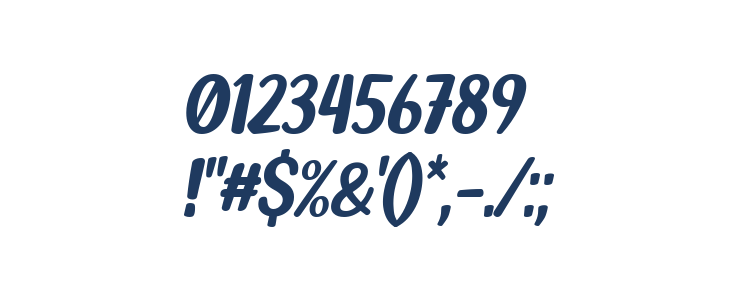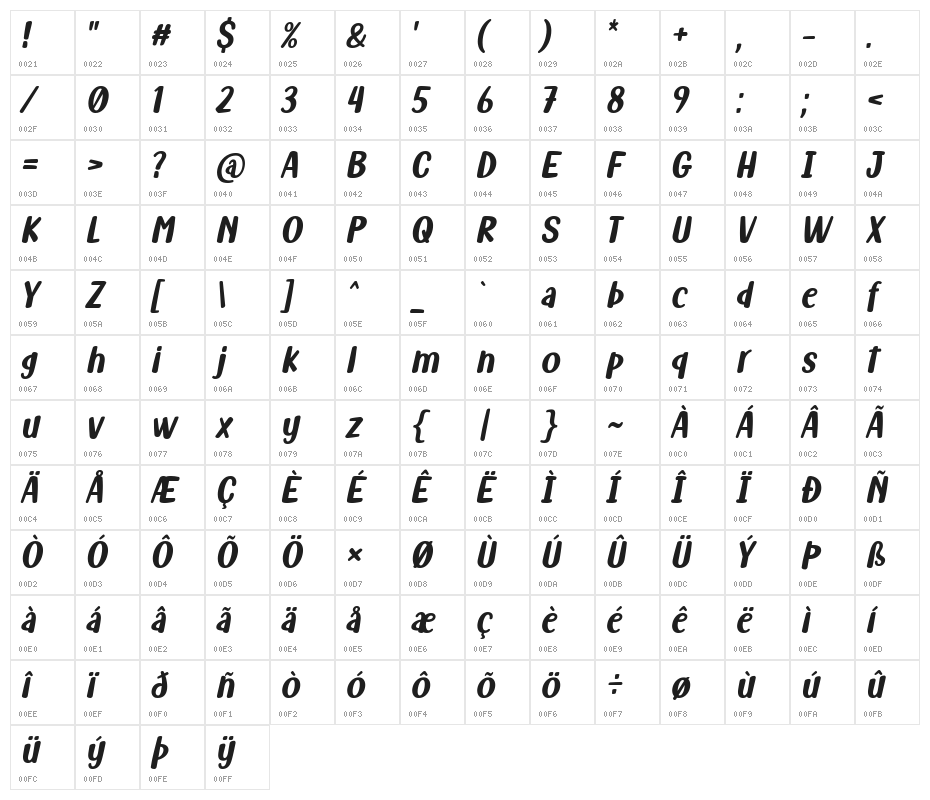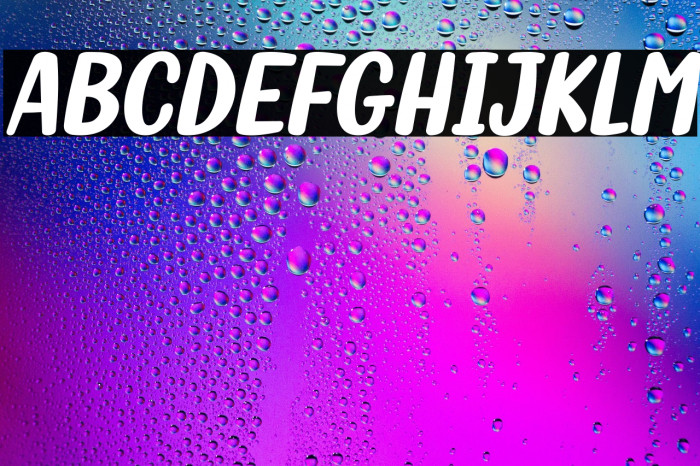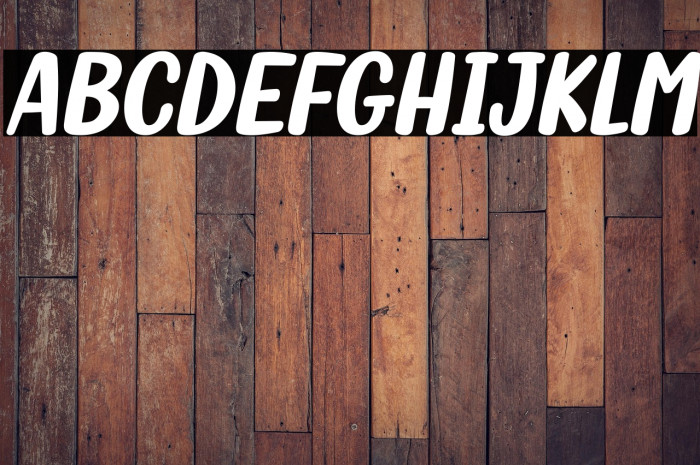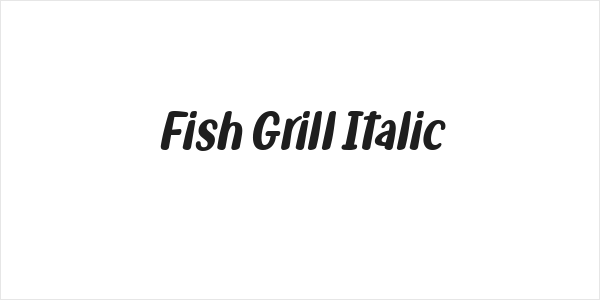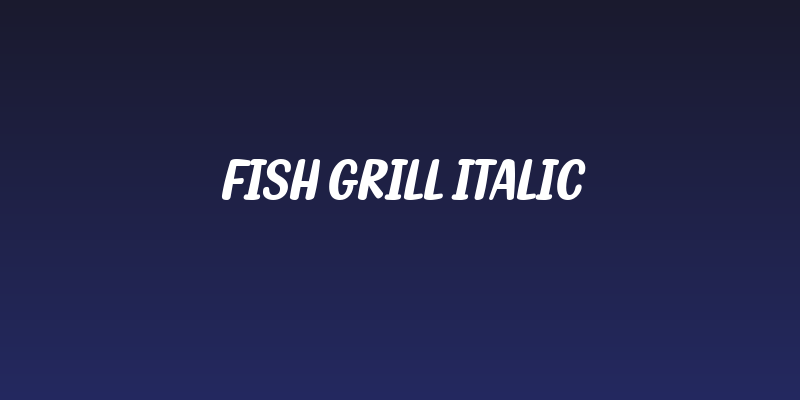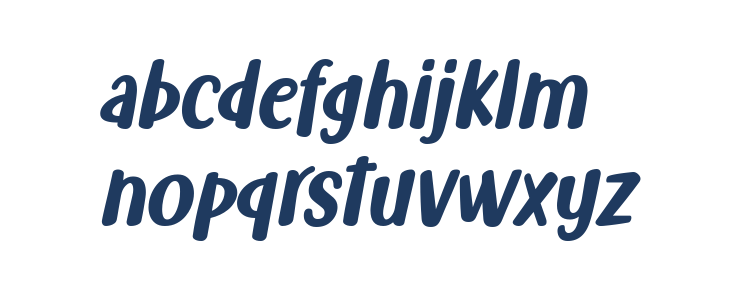
Fish Grill Italic Font
Fish Grill Italic Description
This font features a playful and dynamic italic style, characterized by its smooth, flowing curves and slightly slanted orientation. The letters are bold and rounded, giving a sense of friendliness and approachability. The uppercase and lowercase characters maintain a consistent style, with a slight emphasis on the curves, enhancing the overall fluidity. Numbers and special characters are designed to match the lively and informal aesthetic, making them easily readable while maintaining the font's unique charm. The font's design is versatile, suitable for various creative applications where a casual yet stylish appearance is desired.